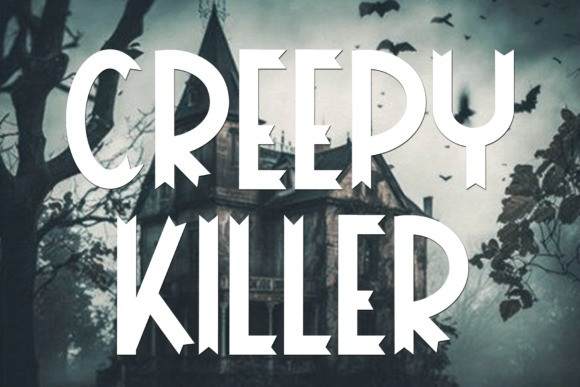
Home Nothing Font
Home Nothing Font is a bold decorative display font with sharp, pointed edges and dramatic flair. Its striking angular details give it a retro yet modern gothic vibe, ideal for eye-catching titles, branding, posters, or themed graphics. Whether you’re going for edgy, vintage, or mysterious, this font makes a bold statement.